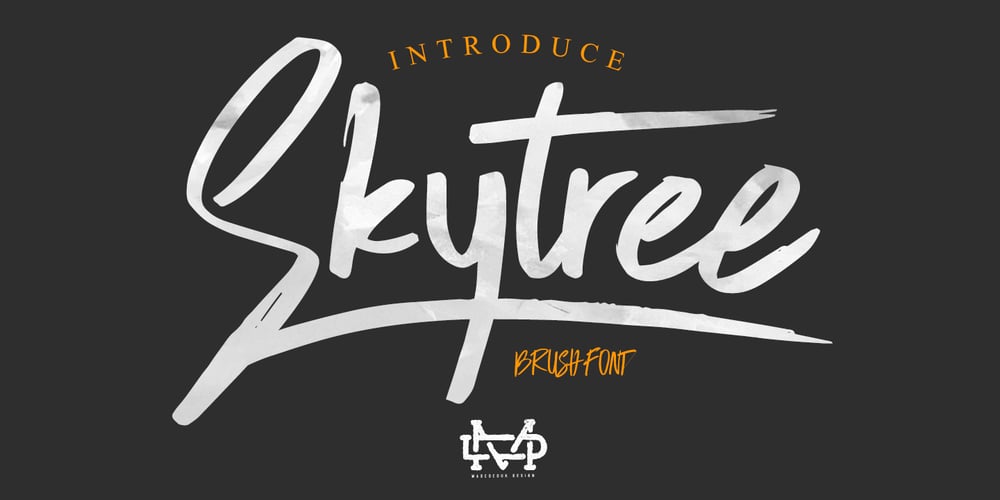
Skytree
Skytree font
Skytree Font Family was designed by Suandana ipandemade and published by madeDeduk. Skytree contains 3 styles and family package options. Skytree is a modern brush script. Skytree comes in two styles with a lot of stylish alternates characters that will make this font suitable for any design project.Feature Uppercase Lowercase Number & Symbol International Glyphs Alternatives Ligatures Swashes If you need anything else just shoot me on email dedukvic@gmail.com